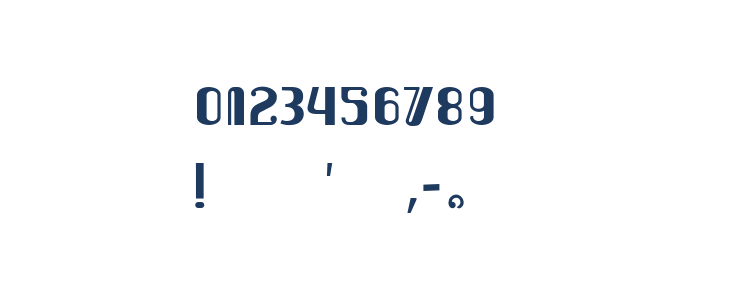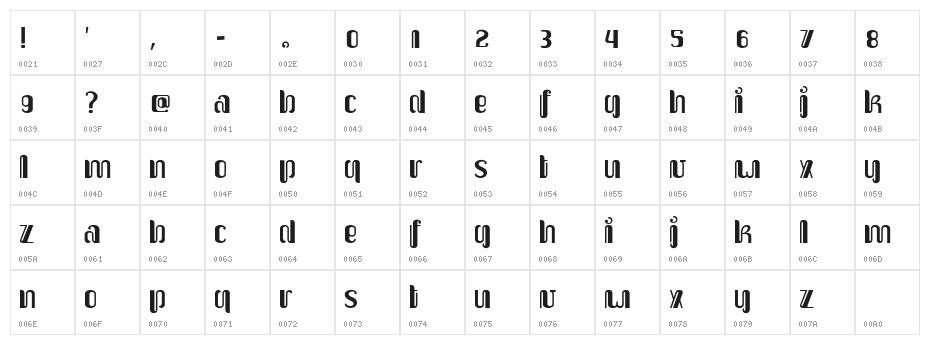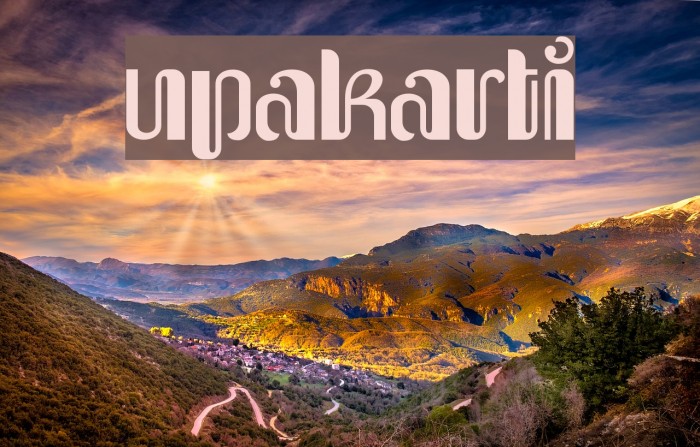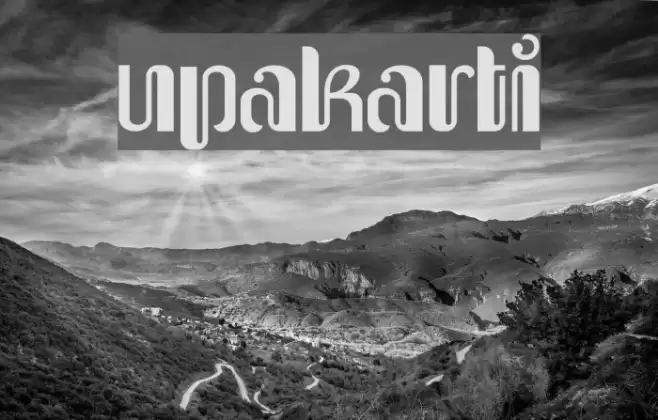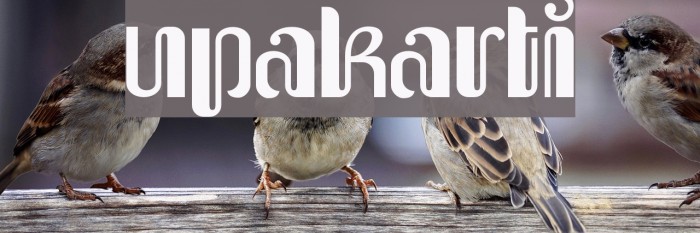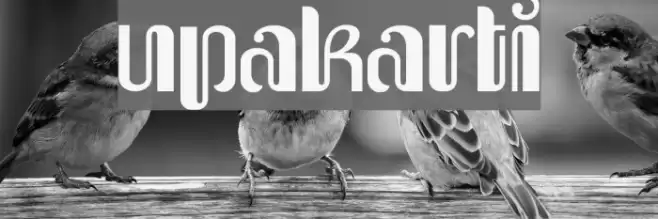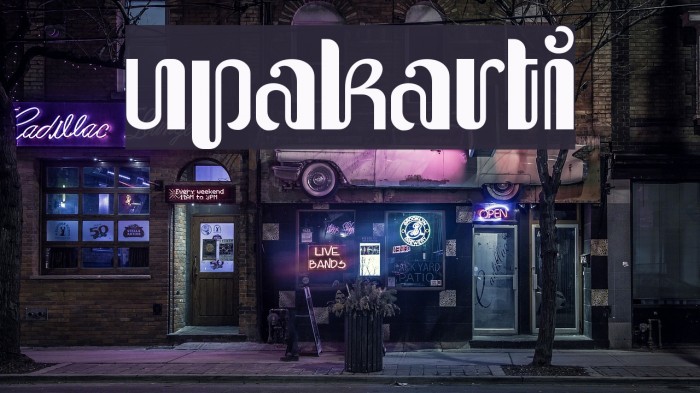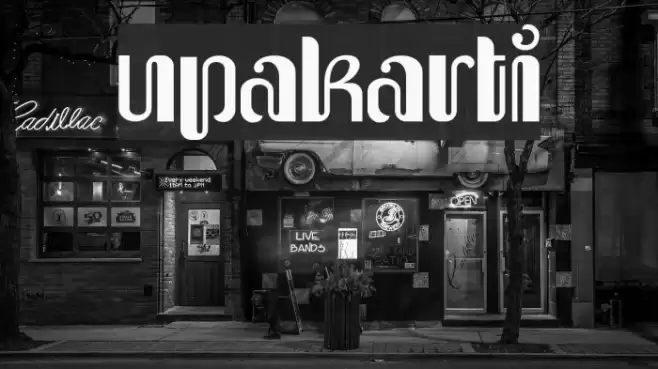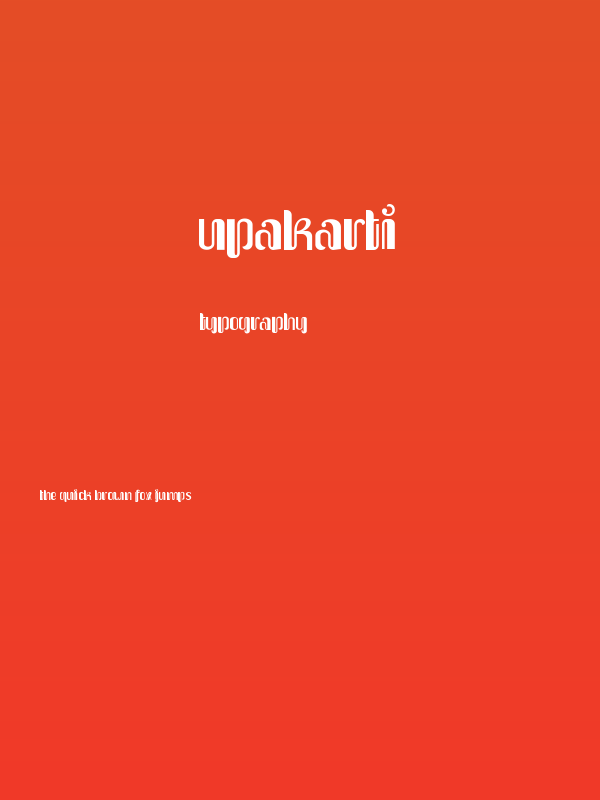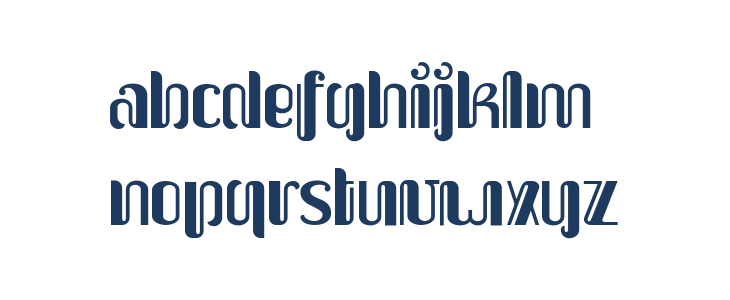
Upakarti Font
Upakarti Description
This font features a unique and modern design with a bold and rounded appearance. The characters are crafted with a consistent stroke width, giving it a monospaced feel, yet maintaining a decorative flair. The uppercase and lowercase letters share similar heights, creating a uniform look across the text. The numbers are distinct and easily readable, while the special characters add a playful touch. The overall style is contemporary, making it suitable for creative and eye-catching designs.
| Proposed Projects | Ideal for branding, poster design, headlines, and digital artwork where a modern and bold statement is desired. |